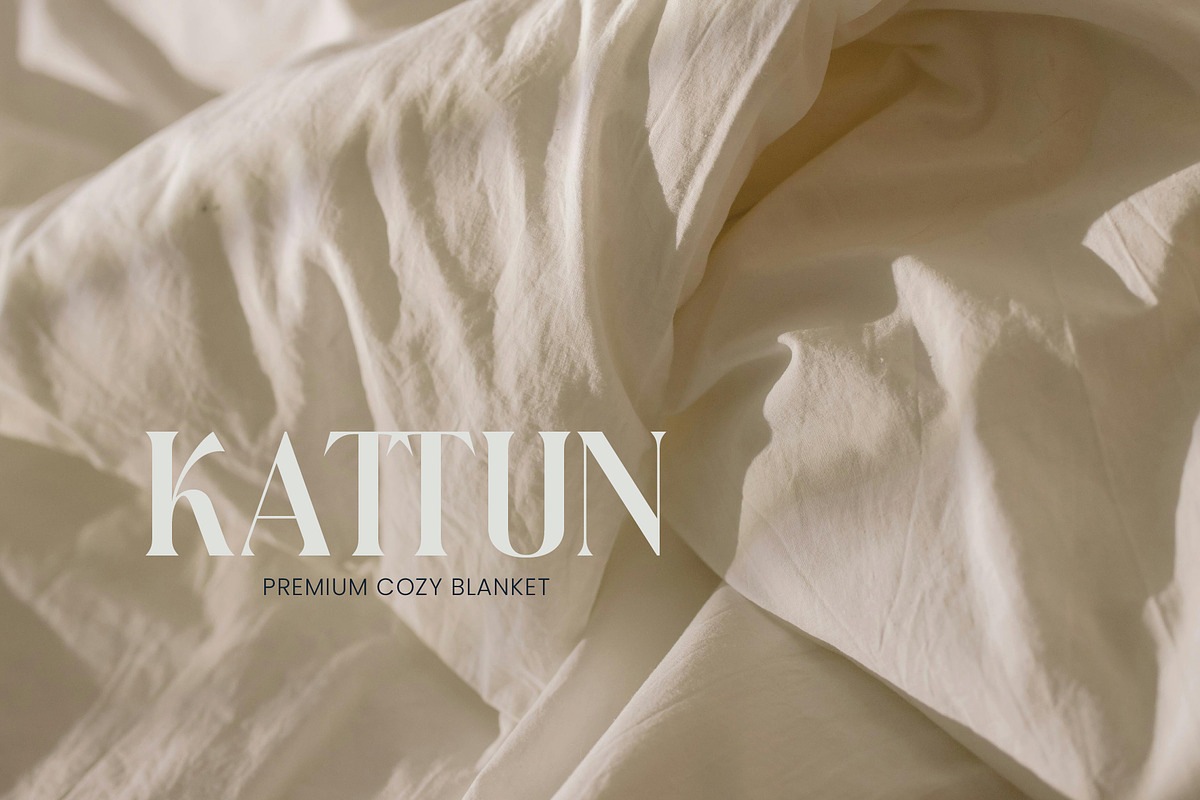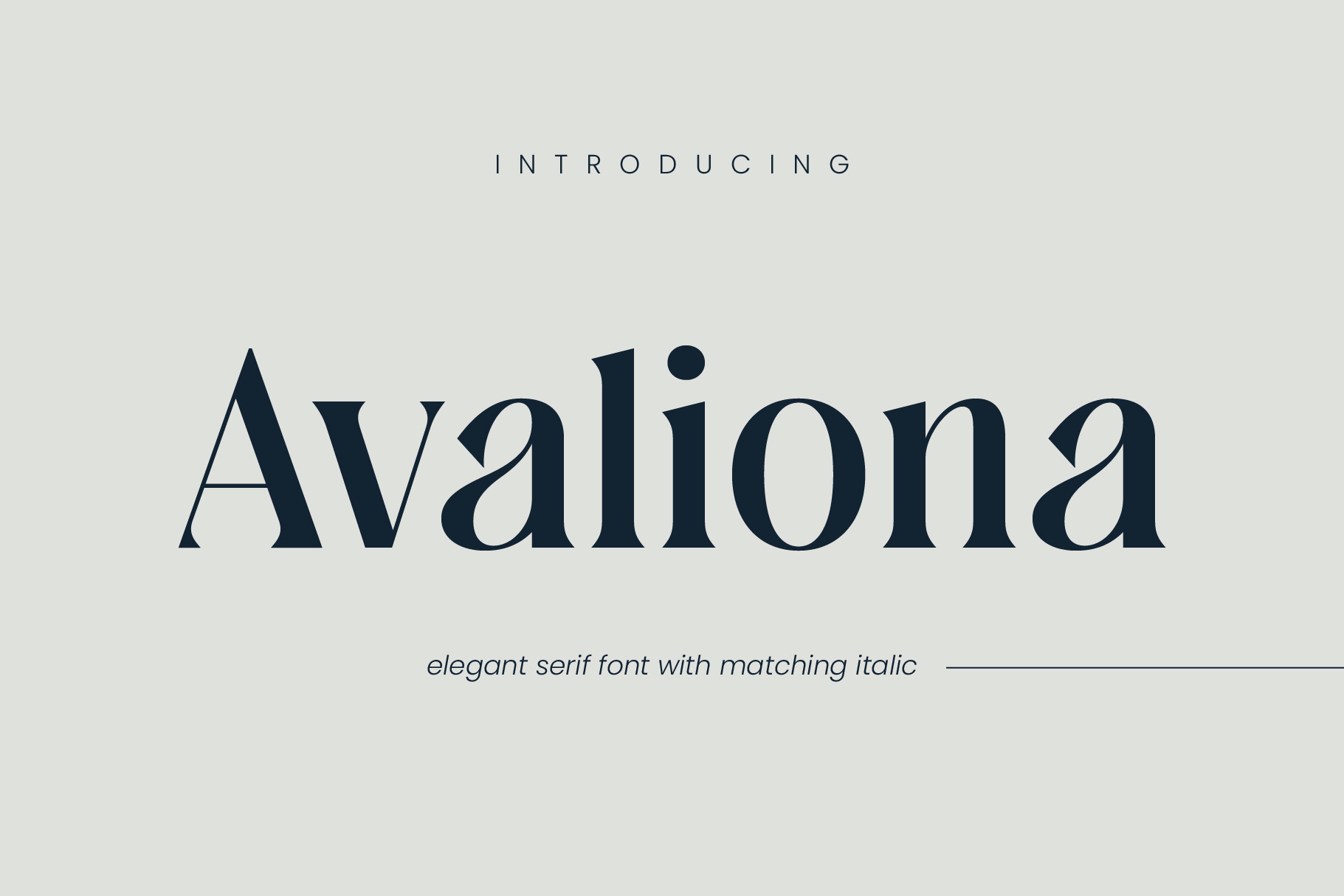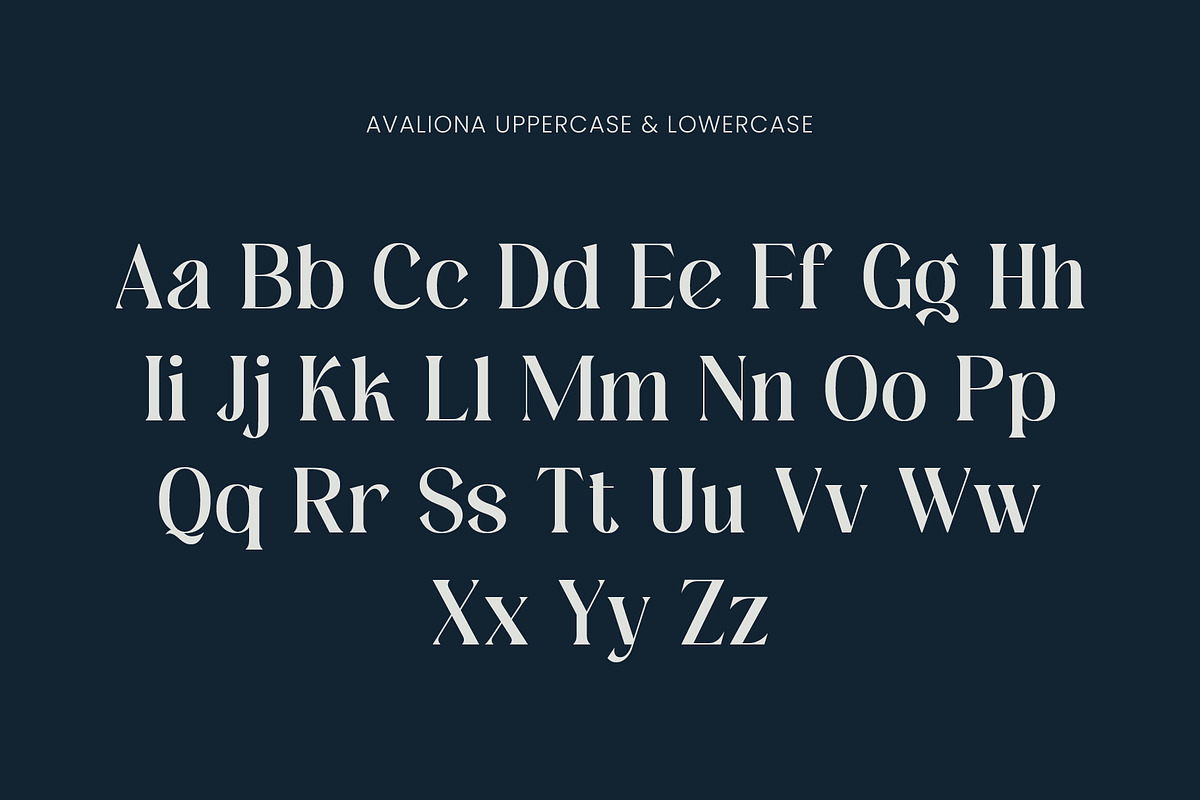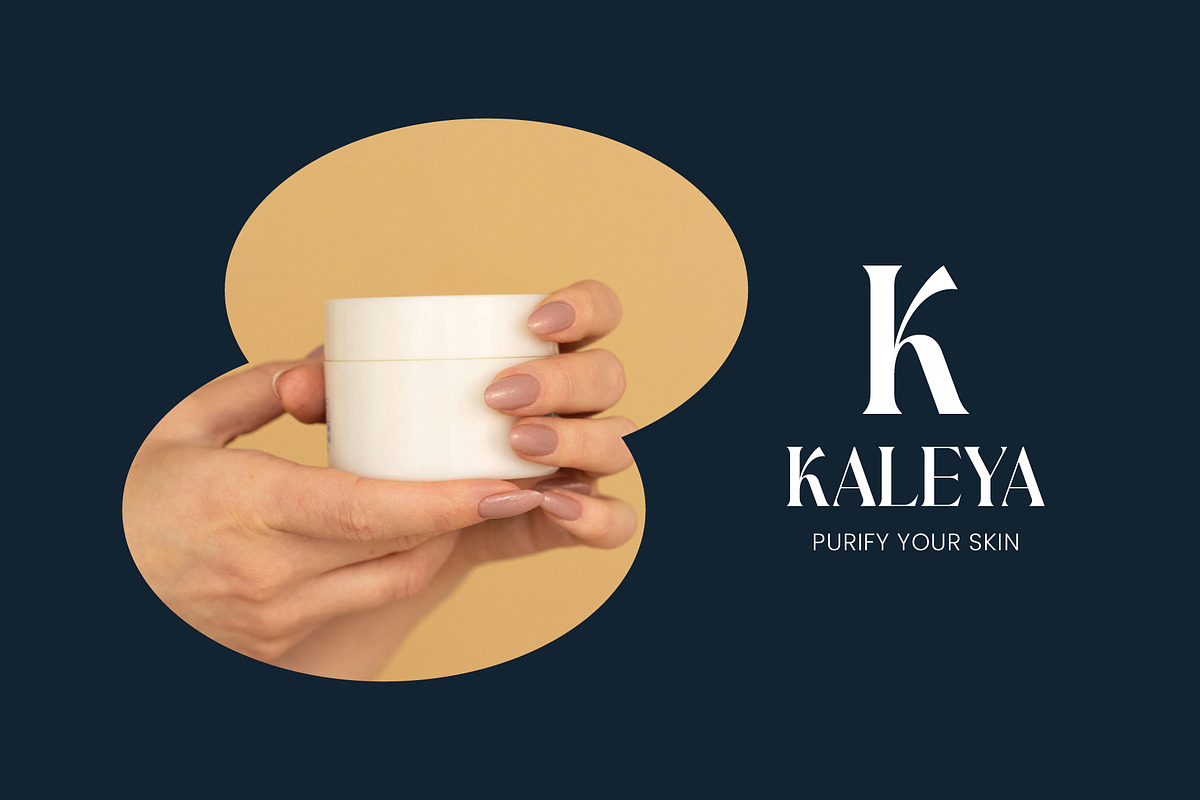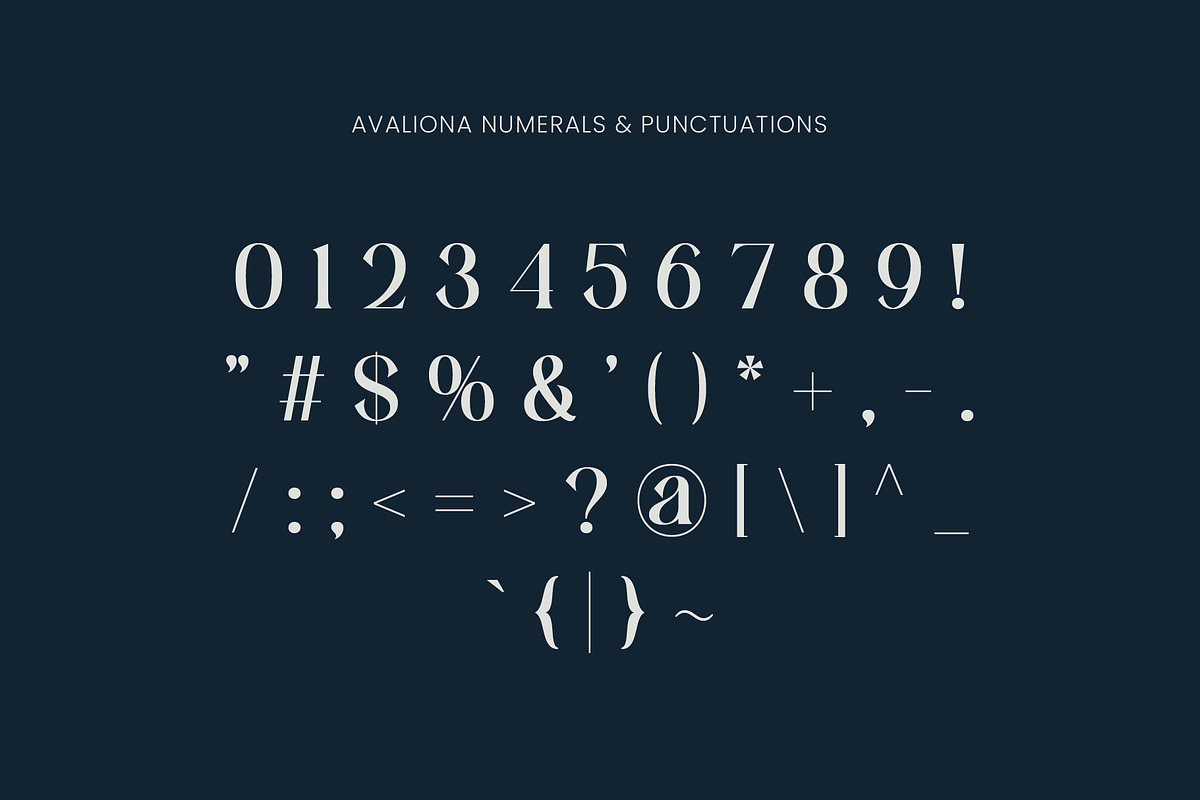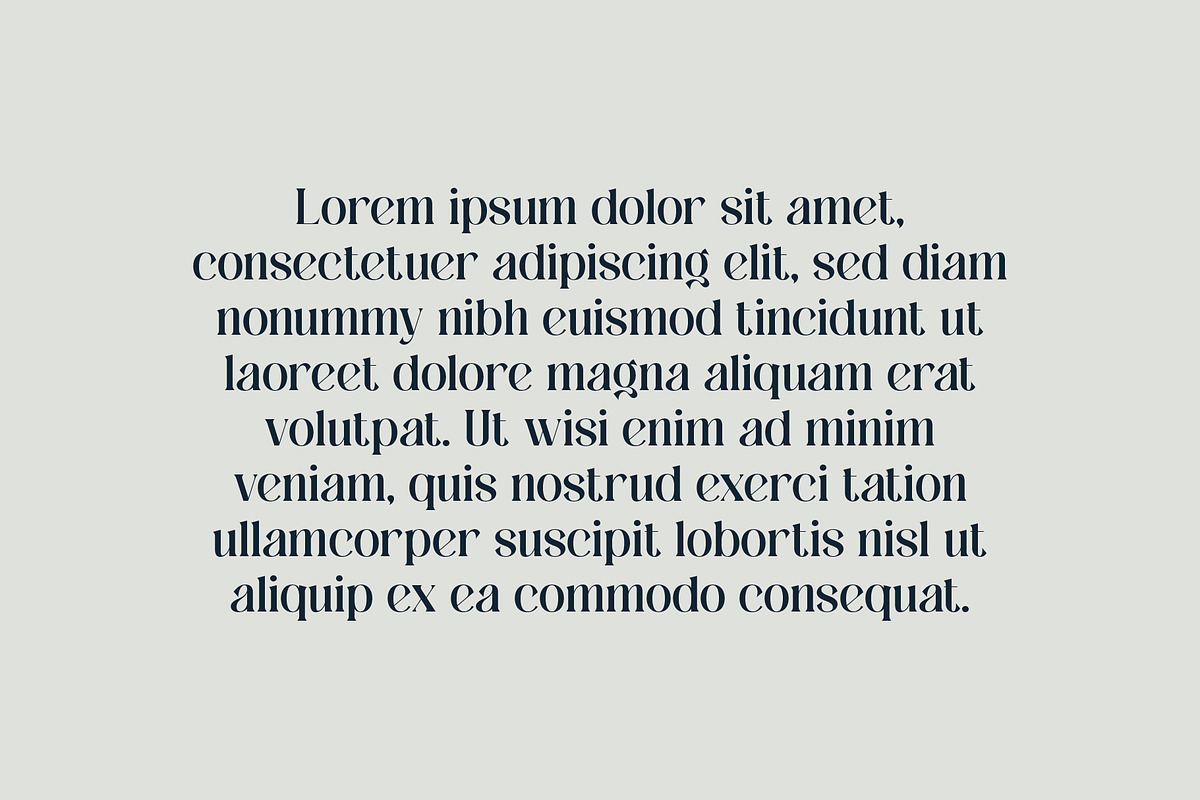
Avaliona - Elegant Serif Font
Introducing Avaliona, a modern and elegant serif font designed to elevate your creative projects. Avaliona is the perfect choice for wedding invitations, fashion magazines, beauty products, packaging, merchandise, posters, and more. Its sophisticated style and versatility make it an essential addition to any designer’s toolkit.
Avaliona offers a complete set of uppercase and lowercase letters, numbers, and basic punctuation, along with italic versions of each character. This ensures you have all the elements you need to create stunning and cohesive designs. Available in OTF, TTF, and WOFF formats, Avaliona is compatible with all major design software, making it easy to integrate into your workflow.
With Avaliona, your designs will exude elegance and modernity, capturing the attention of your audience and leaving a lasting impression. Don’t miss the opportunity to enhance your projects with this exquisite font. Get Avaliona today and let your creativity flourish!